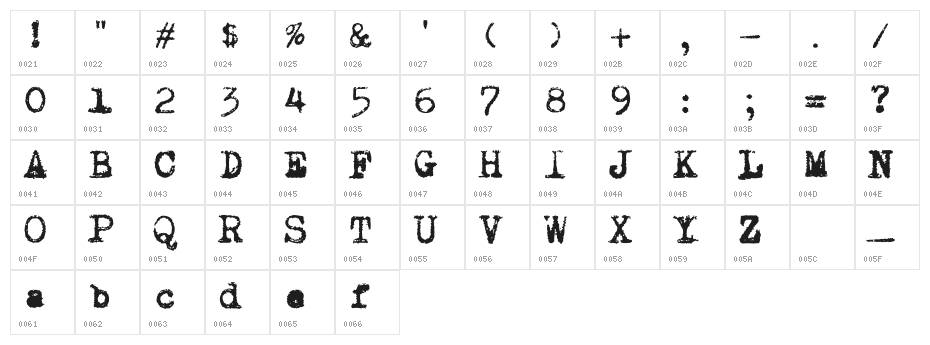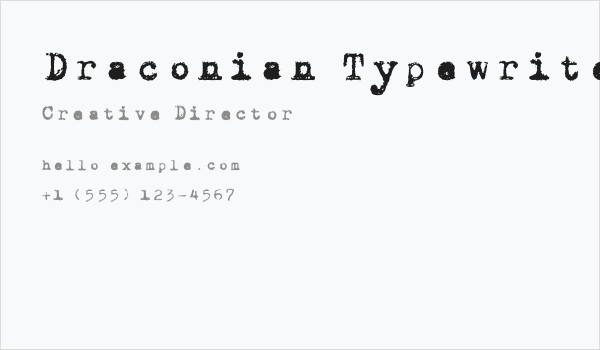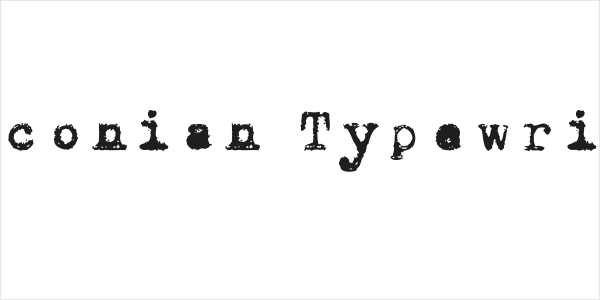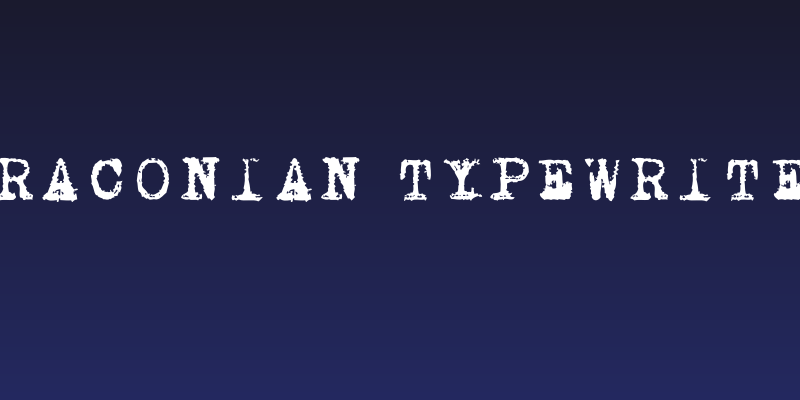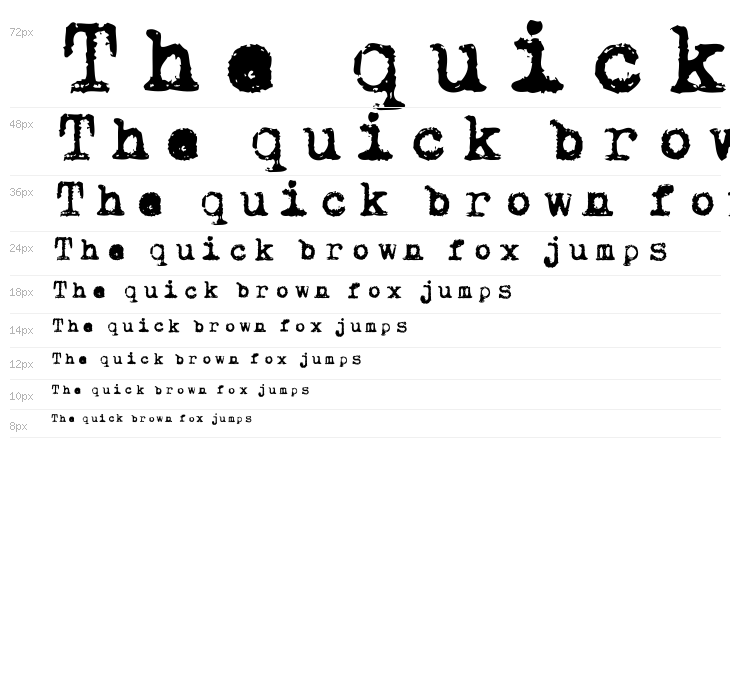
Draconian Typewriter Font
Draconian Typewriter Description
This typewriter-style font exudes a vintage and rugged charm, reminiscent of old typewritten documents. Each character is uniquely distressed, giving it an authentic, worn appearance that adds character and depth. The uppercase and lowercase letters maintain a consistent style, with irregular edges and a slightly uneven baseline, enhancing its retro aesthetic. Numbers and special characters follow the same distressed pattern, ensuring a cohesive look across all text. This font is perfect for projects that require a nostalgic or historical feel, such as retro-themed designs, vintage posters, or creative writing projects that aim to evoke a sense of the past.
| Use Case | Headlines, Logos, Decorative text |
| Proposed Projects | Ideal for vintage posters, retro-themed designs, historical documents, and creative writing projects. |